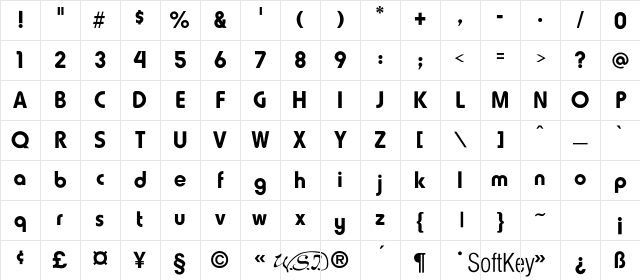
HammerFat Regular Free Font
HammerFat Regular
Complete HammerFat Regular glyph index. Displaying only characters natively supported by HammerFat Regular font.
Design Context for HammerFat
HammerFat is a composed and adaptable typeface that performs quietly and consistently across a wide range of design contexts.